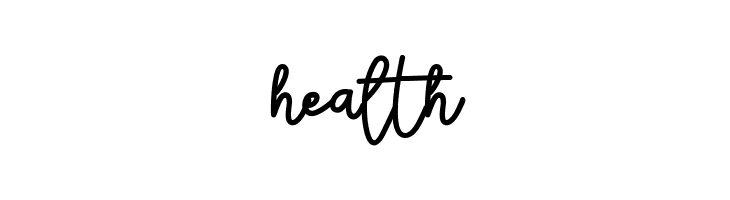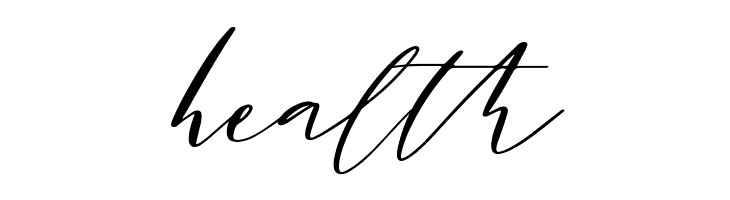
A lively, expressive handwritten font with fluid strokes and a modern feel.
A playful and whimsical font with smooth, flowing curves and a friendly appearance.
A playful and elegant script font with fluid, connected letterforms.
An elegant and flowing script font with graceful curves and loops.
An elegant script font with flowing, cursive strokes and a refined appearance.
A playful, handwritten font with flowing, interconnected letterforms and a whimsical style.
A lively and dynamic script font with fluid, connected strokes.
A delicate and flowing script font with elegant, interconnected letters.
A playful and elegant handwritten font with fluid, flowing letterforms.